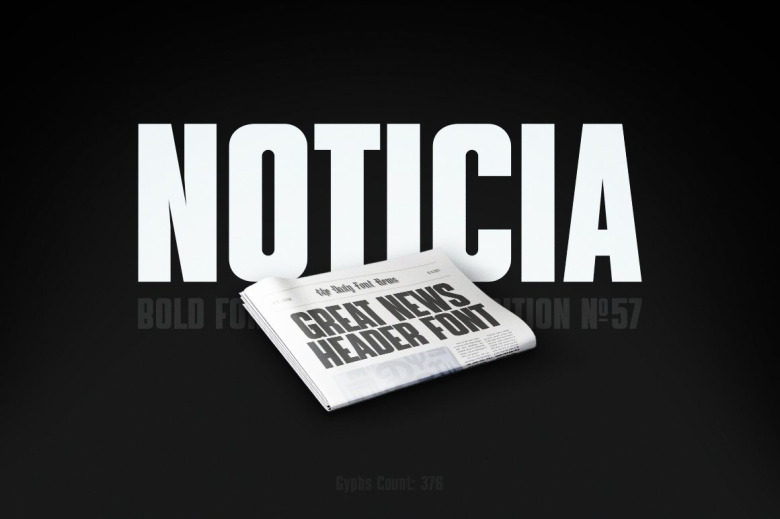
Noticia is a classic and bold strong style font perfect as headline and short header inspired by old print newspapers. It has a clean and simplistic look making it easy to read for a simple and traditional look.
This font trends would perfect for quotes, logos, beauty, digital, and entertainment. It features Uppercase and Lowercase letters, Numbers and Punctuation, and Multilingual Language support.
Noticia Display Font